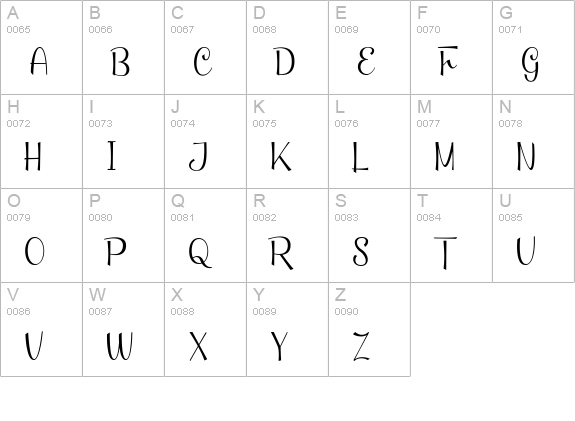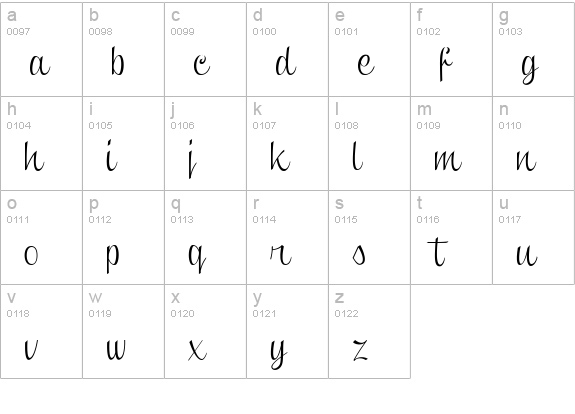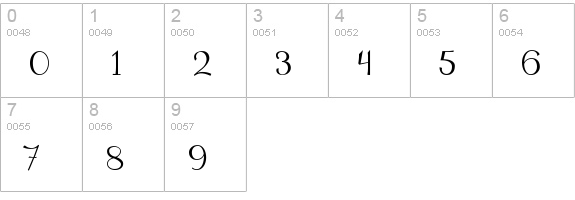
Clipper Script (Personal Use) Font Details
Clipper Script (Personal Use) is a stunningly elegant handwritten font that is perfect for adding a touch of sophistication to any design project. With its beautifully flowing lines and graceful curves, this font is sure to capture attention and make a lasting impression. Whether you're designing invitations, creating logos, or crafting a unique branding identity, Clipper Script (Personal Use) will elevate your work to new heights. Its charming and versatile nature allows it to effortlessly adapt to various design styles, from classic and vintage to modern and contemporary. What makes Clipper Script (Personal Use) even more appealing is that it is available for free download at FontsMarket.com. This means that you can enjoy the beauty and versatility of this font without any cost, making it an ideal choice for personal projects, hobbyists, and small businesses. Designed with meticulous attention to detail, Clipper Script (Personal Use) offers a wide range of ligatures and alternates to enhance the authenticity of handwritten text. Its smooth and consistent letterforms ensure legibility while adding a touch of elegance and uniqueness. With its extensive language support, Clipper Script (Personal Use) allows you to create designs in multiple languages, making it a valuable asset for international projects. Whether you're designing for print or digital media, this font will bring your words to life with its timeless beauty. Download Clipper Script (Personal Use) today from FontsMarket.com and unlock the potential to create visually stunning designs. Enjoy the freedom to express your creativity with this free font, and let it add a touch of elegance to your personal and professional projects.